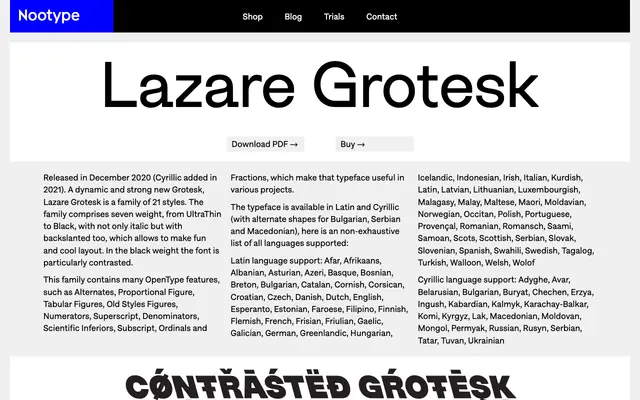
Lazare Grotesk
Nootype · 2020
A 21-style grotesque with seven weights, italics and a backslanted variant, covering Latin and Cyrillic with broad OpenType support.
Released in December 2020 with Cyrillic added in 2021, the family spans UltraThin to Black across upright, italic and backslanted cuts — the latter a relatively rare inclusion that opens up unconventional layout options. Contrast increases notably in the Black weight, giving the heaviest styles a more expressive, almost display character. Cyrillic coverage includes alternate shapes for Bulgarian, Serbian and Macedonian, alongside an extensive Latin language list.
Explicitly named a Grotesk by the foundry, with the high contrast in heavier weights and dynamic character typical of the grotesque tradition. The backslanted variant adds an unusual expressive dimension uncommon in classical grotesques.